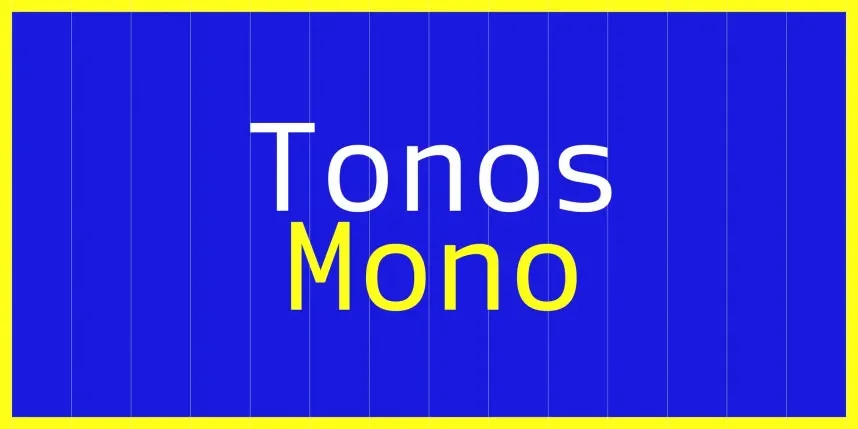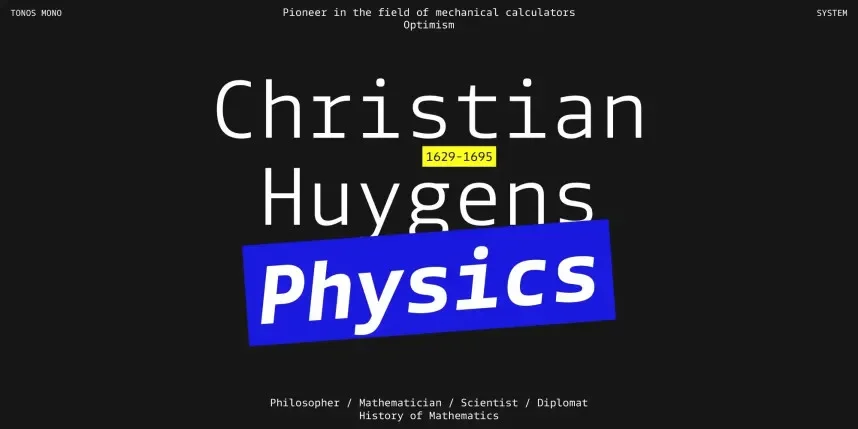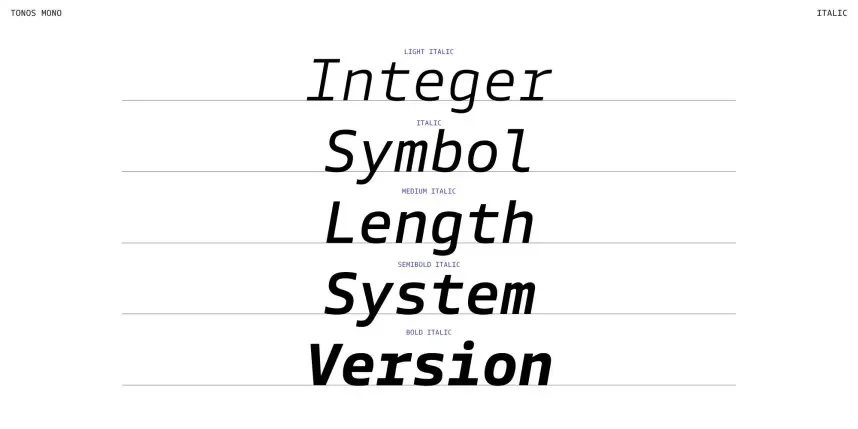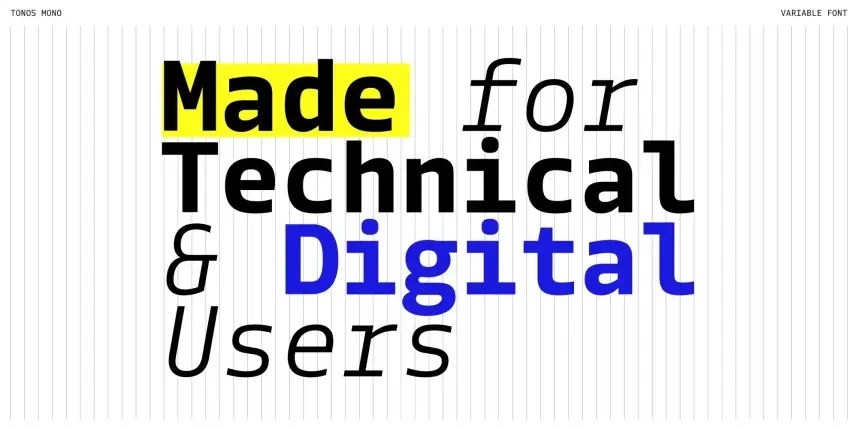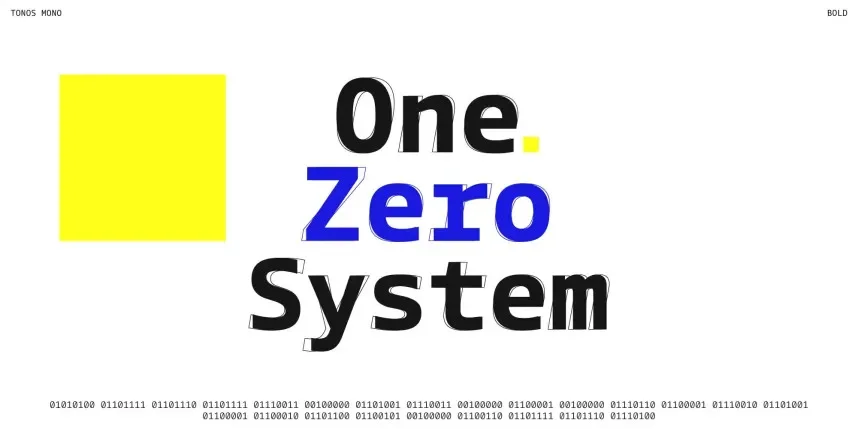
Tonos Mono Font Family is a monospaced version of the popular Tonos typeface, designed for clarity and precision. Its clean, uniform letterforms make it perfect for coding, digital interfaces, and projects that require a consistent, readable design.
Best used for code, technical documentation, and web design, Tonos Mono Font pairs well with sans-serif fonts for added contrast. Available in TTF and OTF formats, this font family includes a commercial-use license. Always verify licensing details before using it commercially.